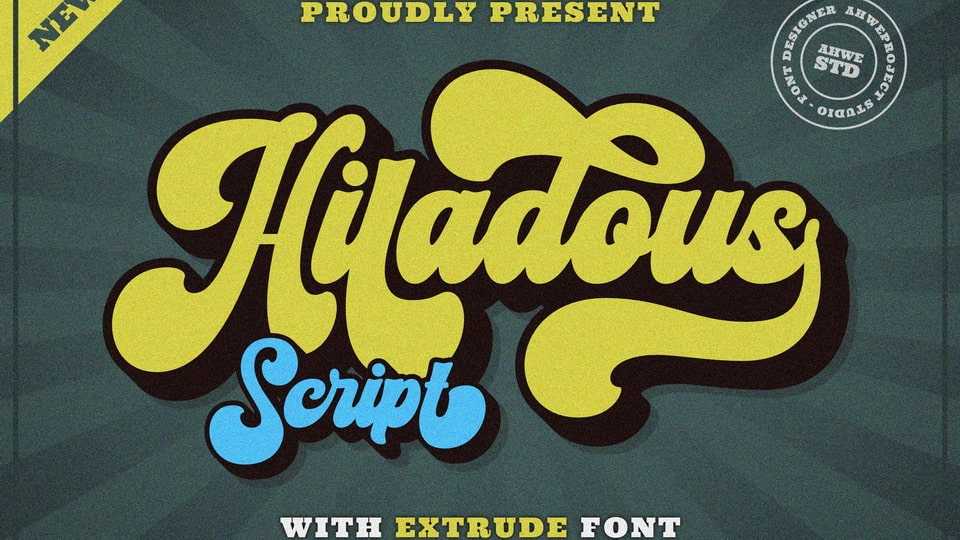
Download Hiladous font, a bold and retro-styled handwritten typeface. This font reads as strong, confident, and dynamic, and can add tons of nostalgic character to your designs.